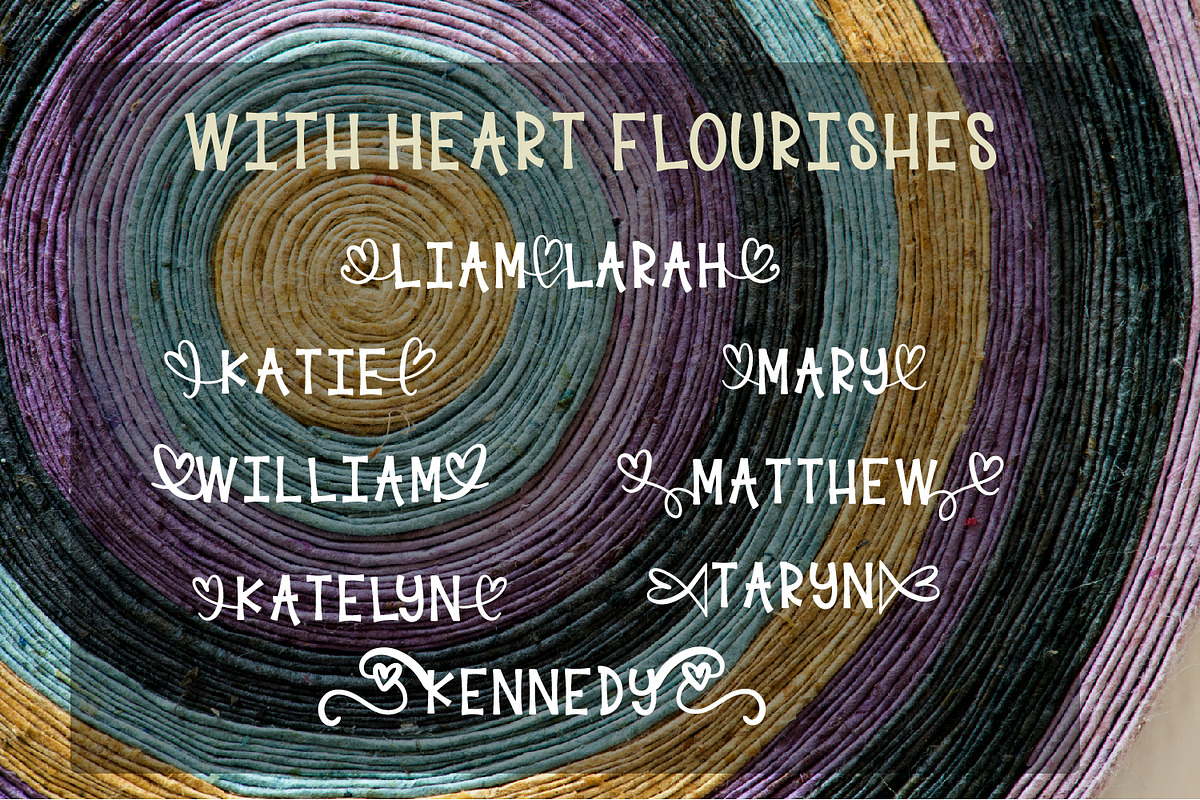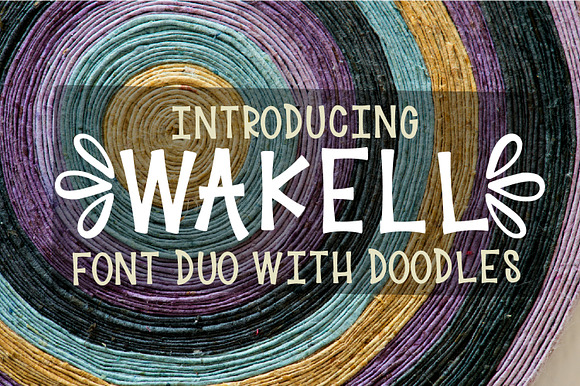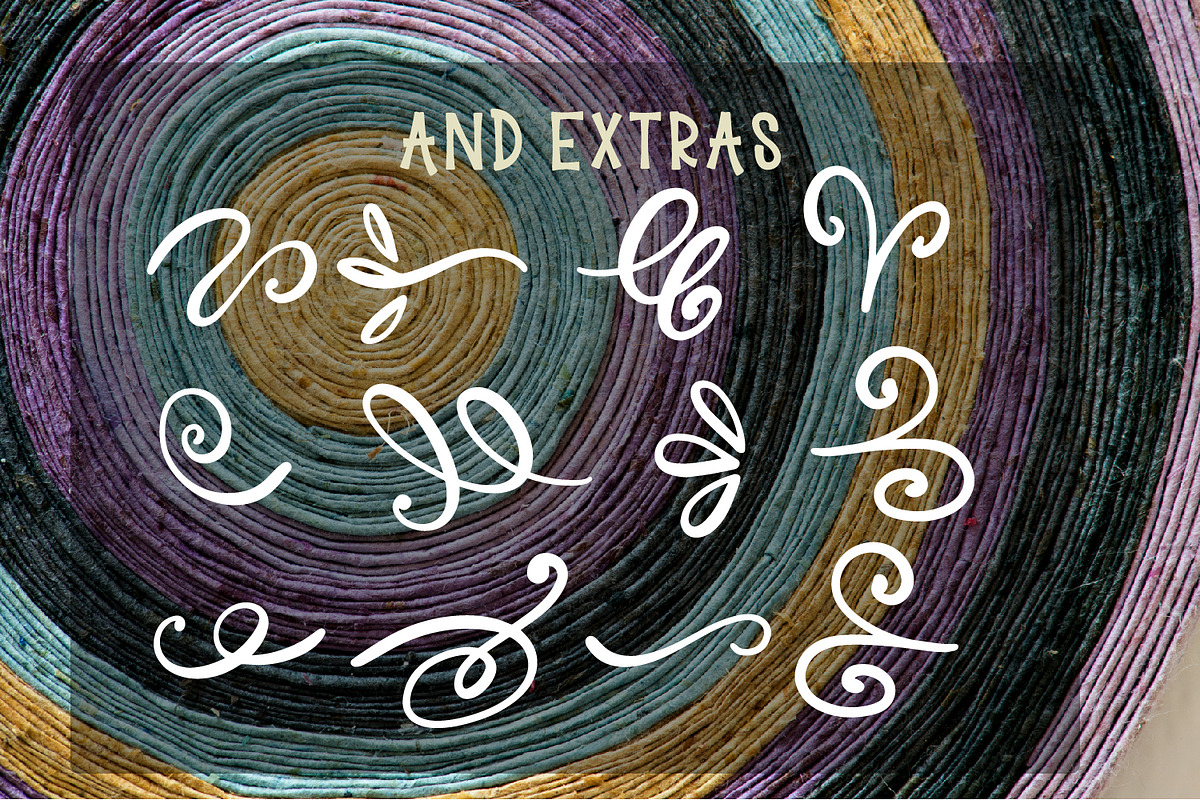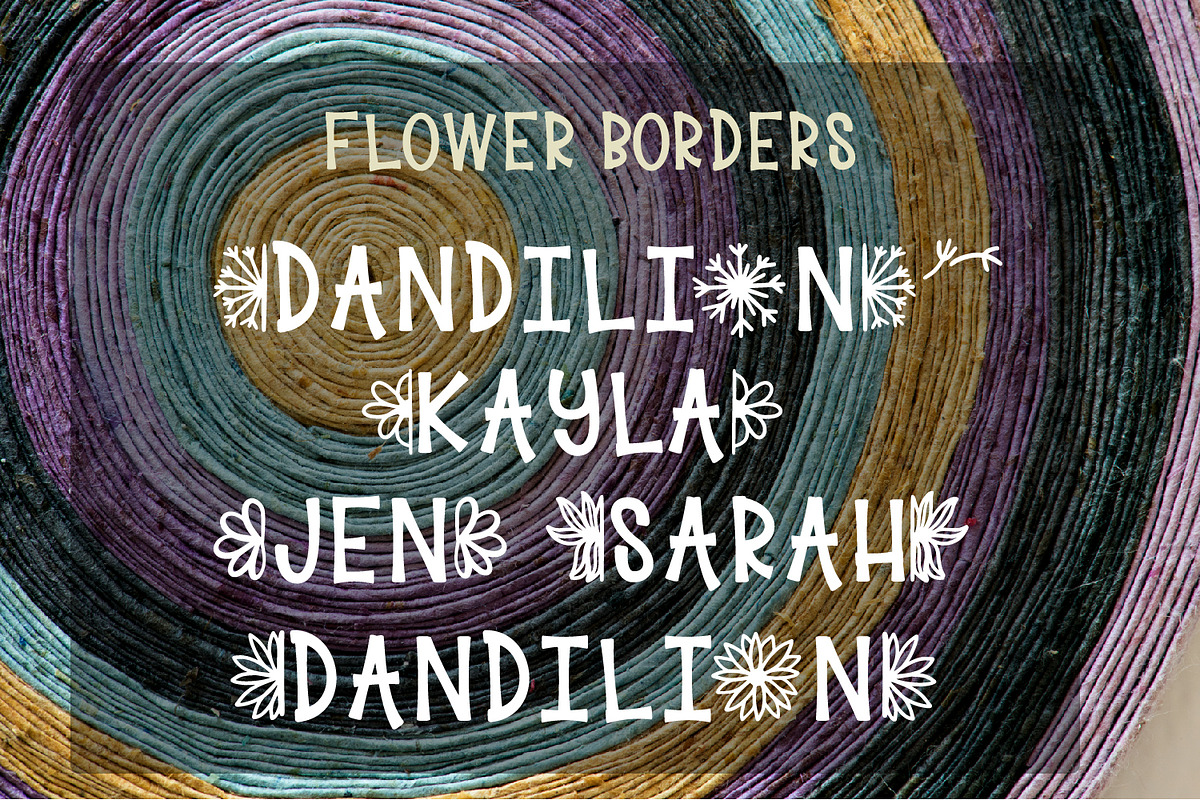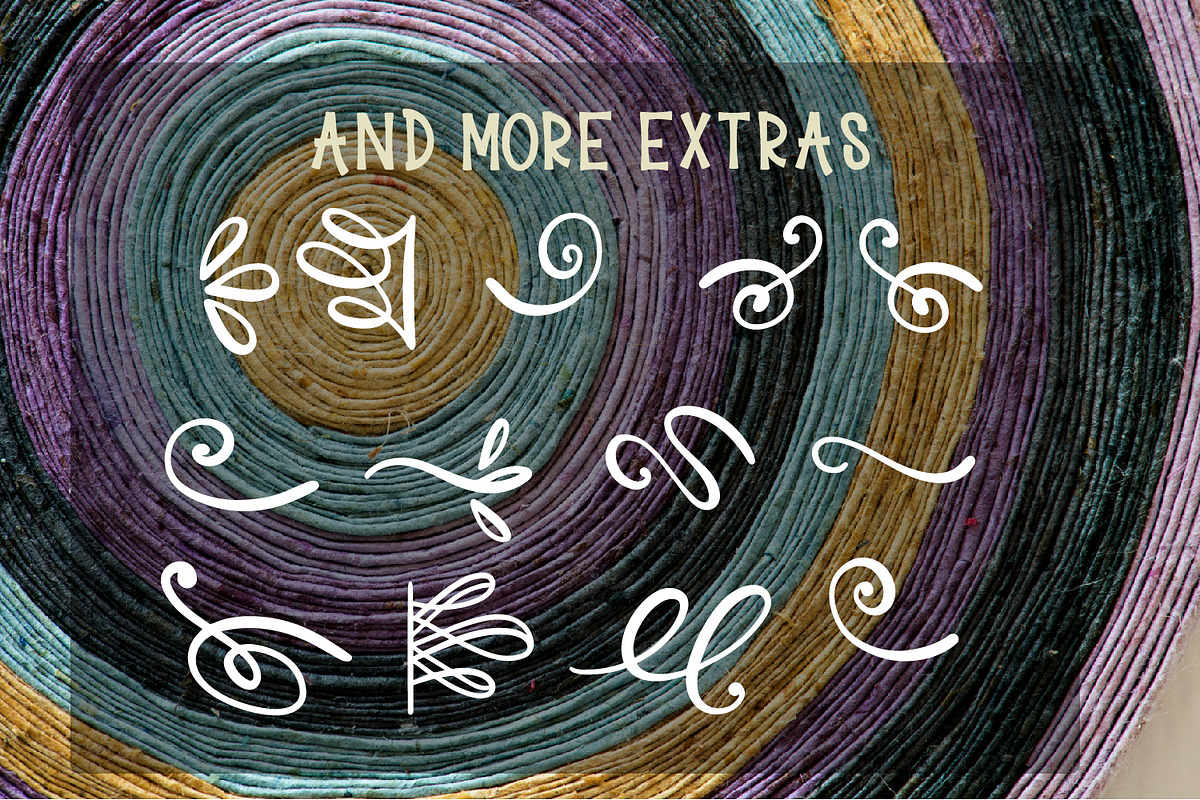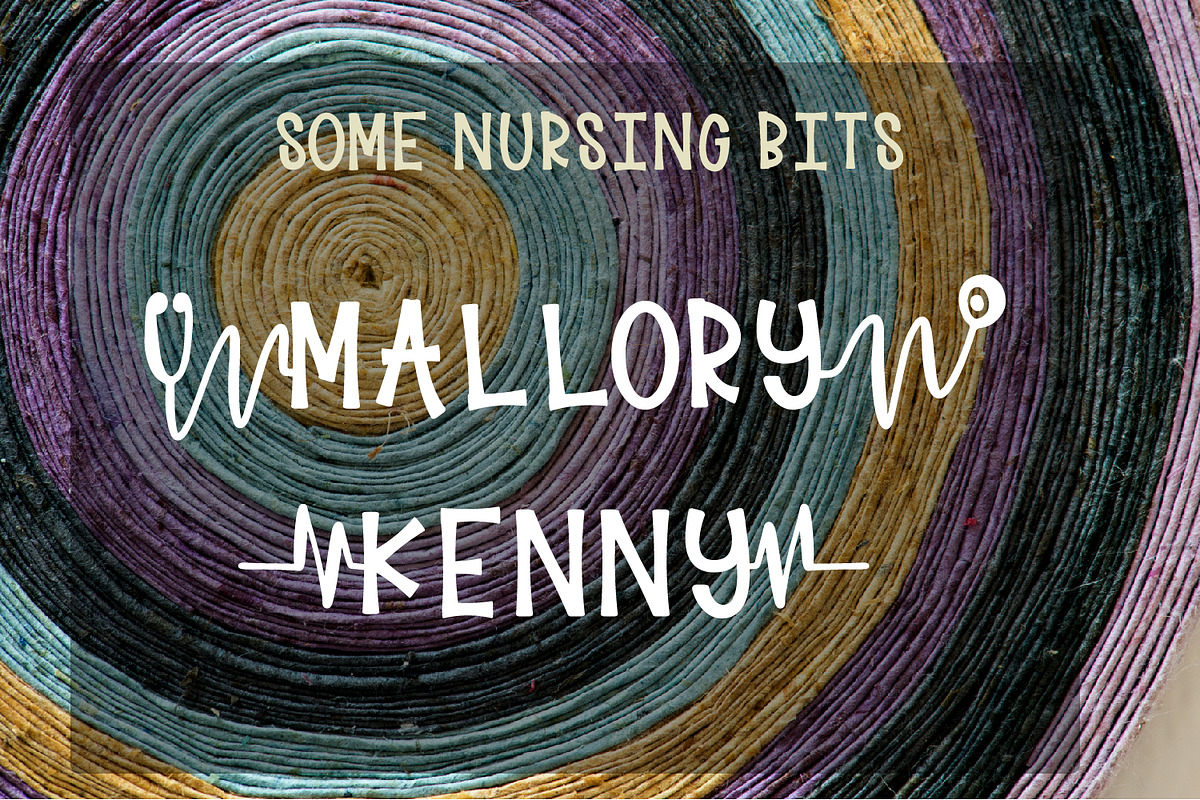
Wakell - Font Duo With Ornaments
Why Wakell - Font Duo With Ornaments is worth a look
Wakell - Font Duo With Ornaments by CraftyLittleNodes fits naturally into Branding, posters, packaging, typography.